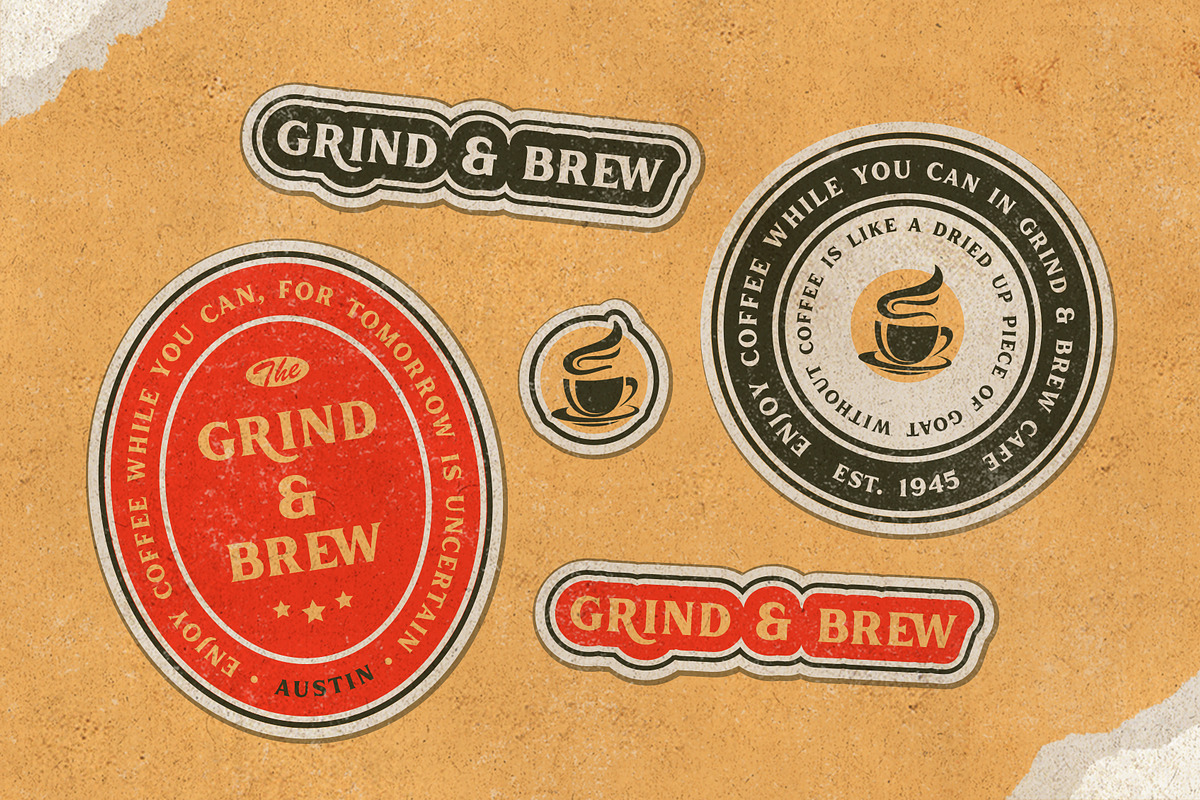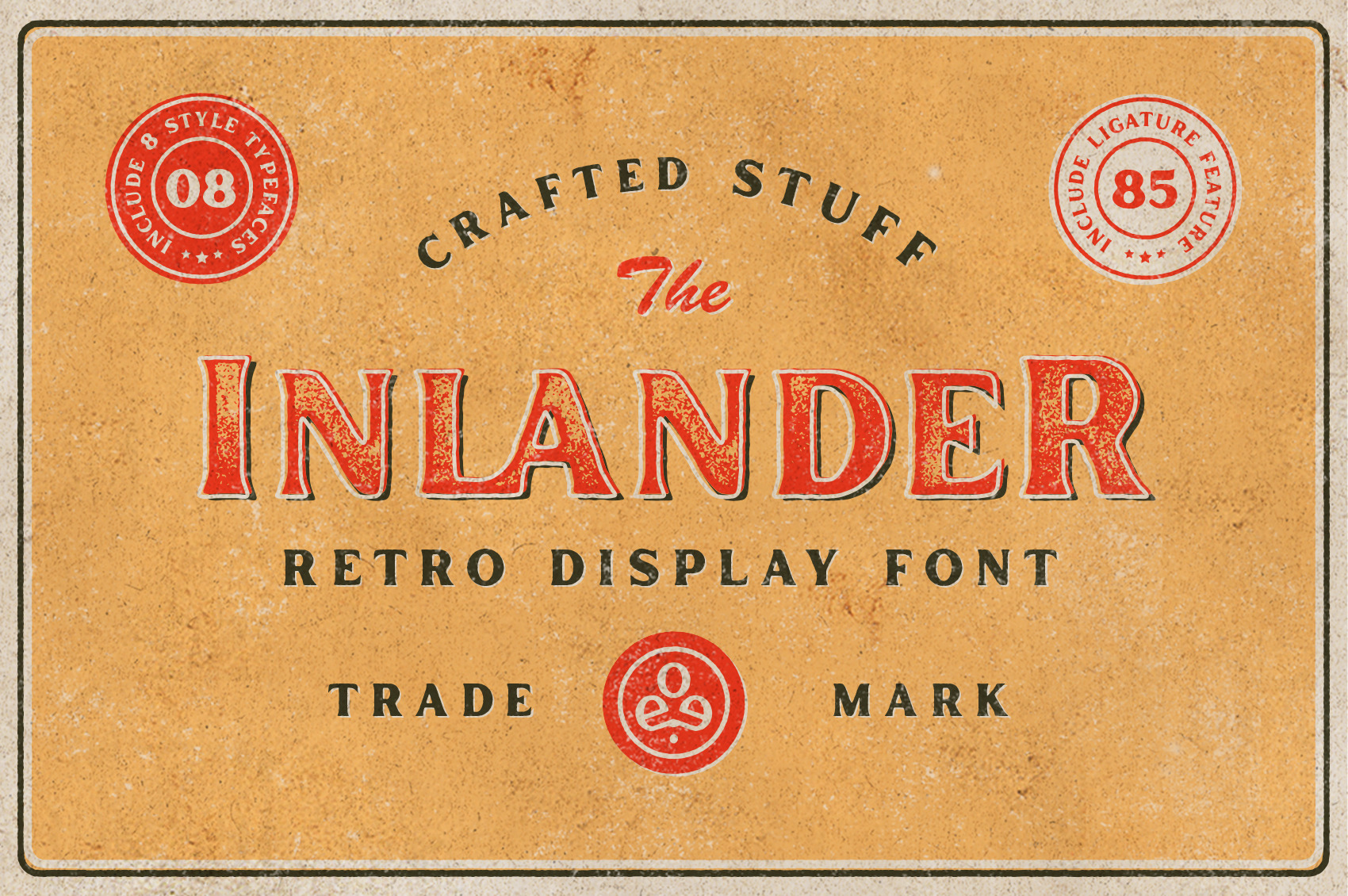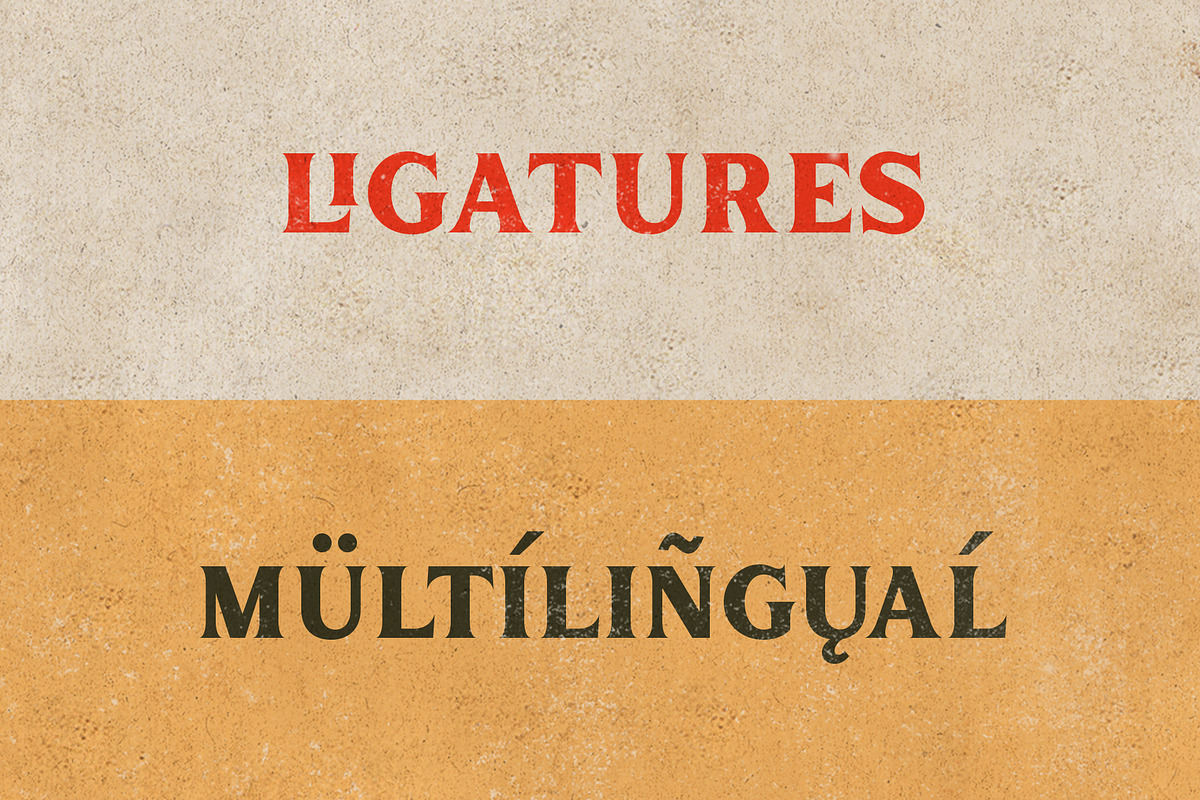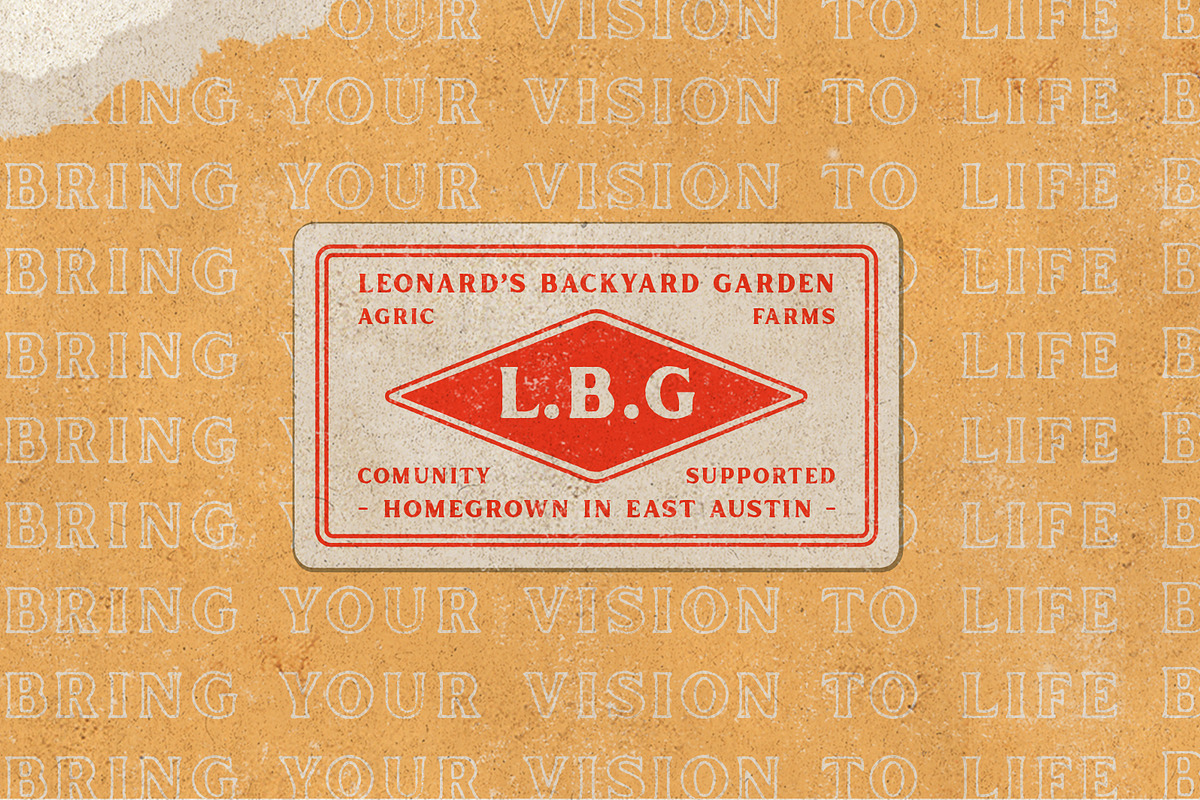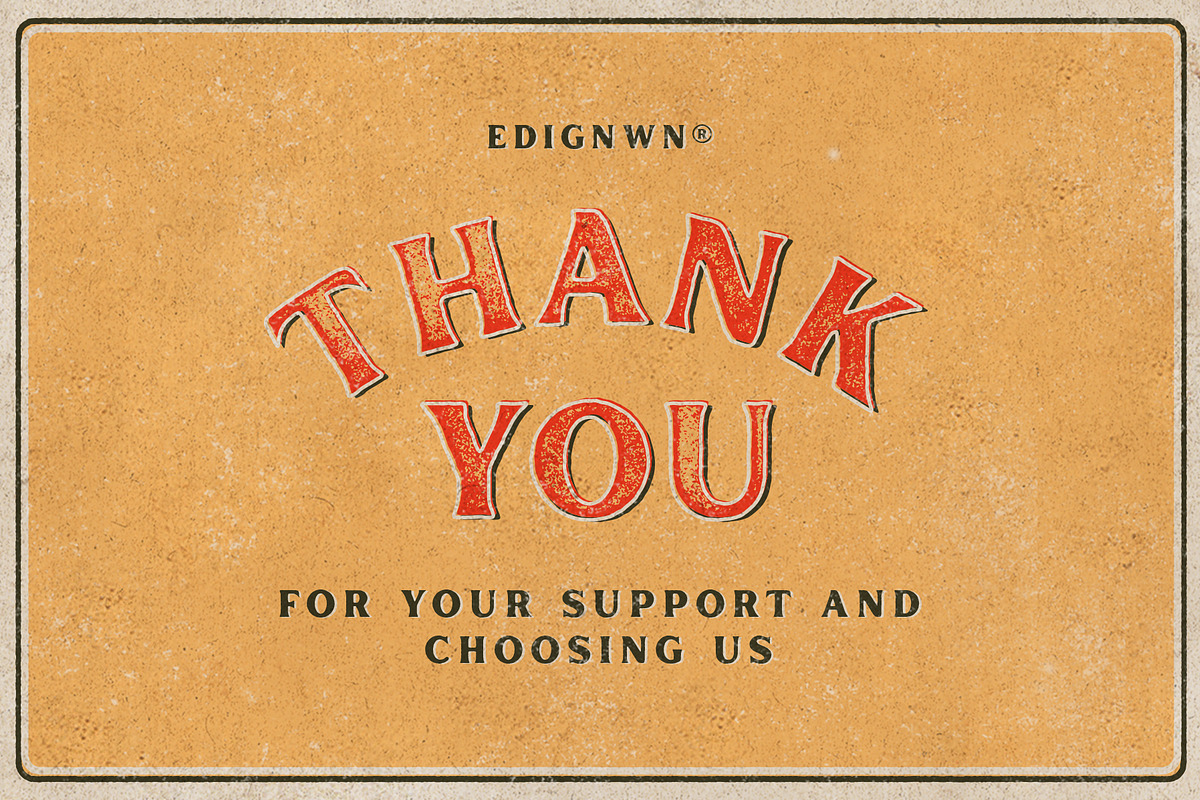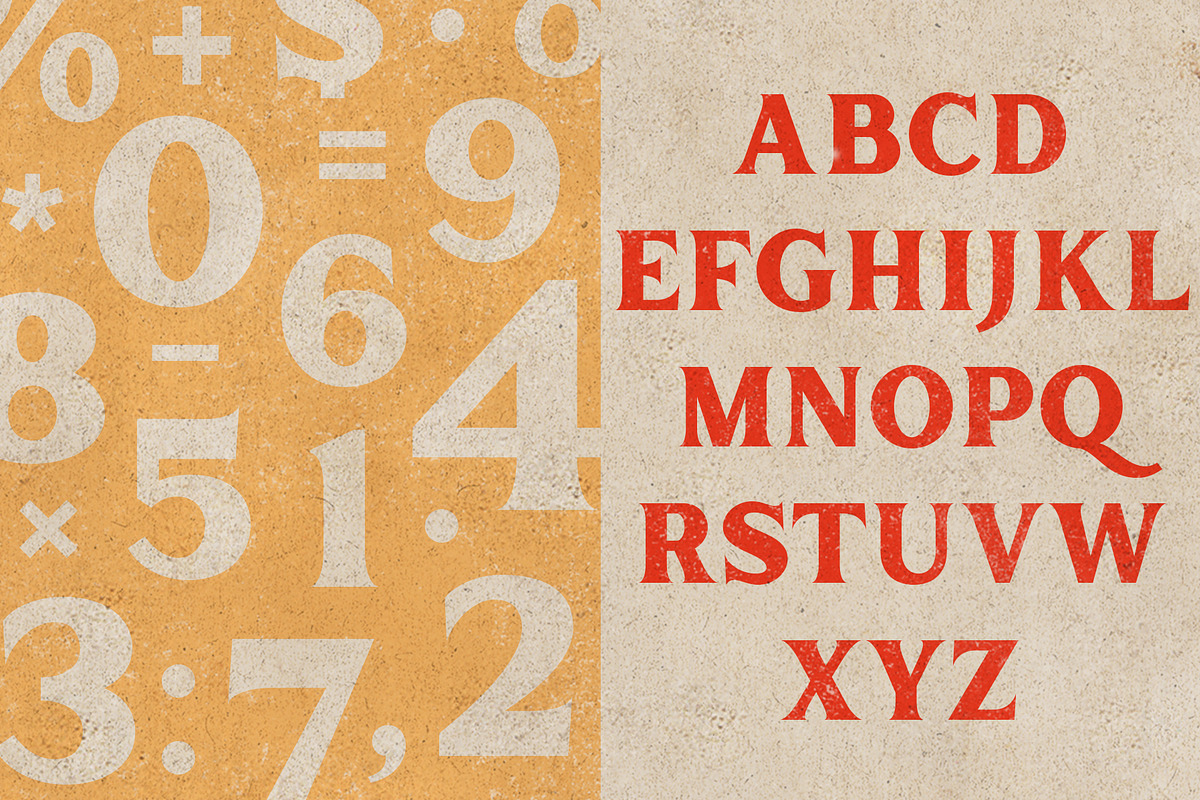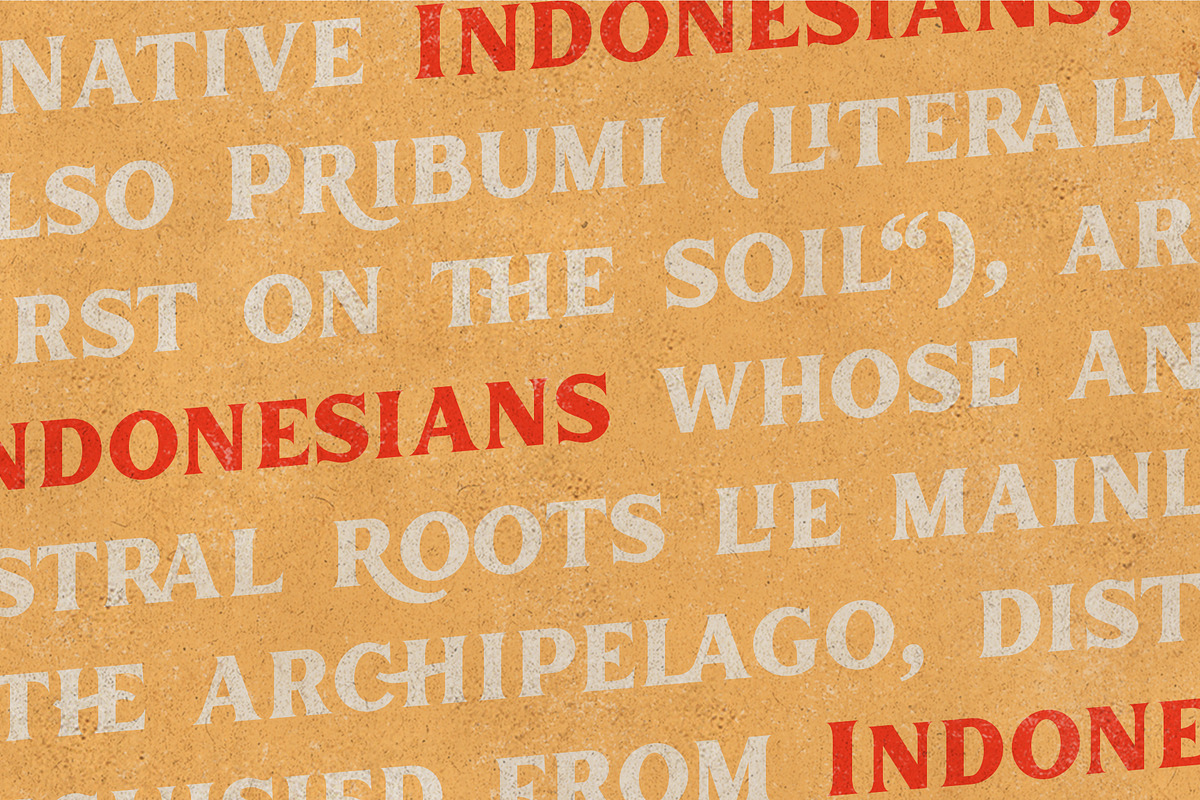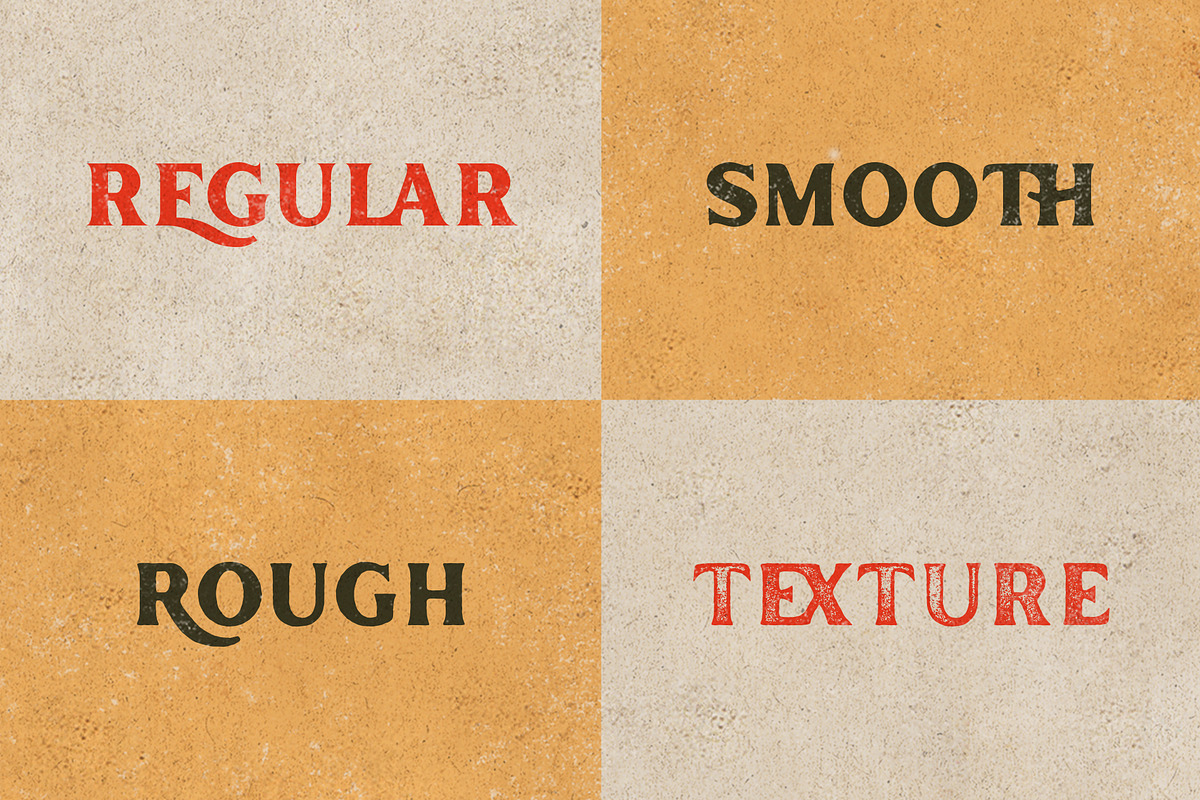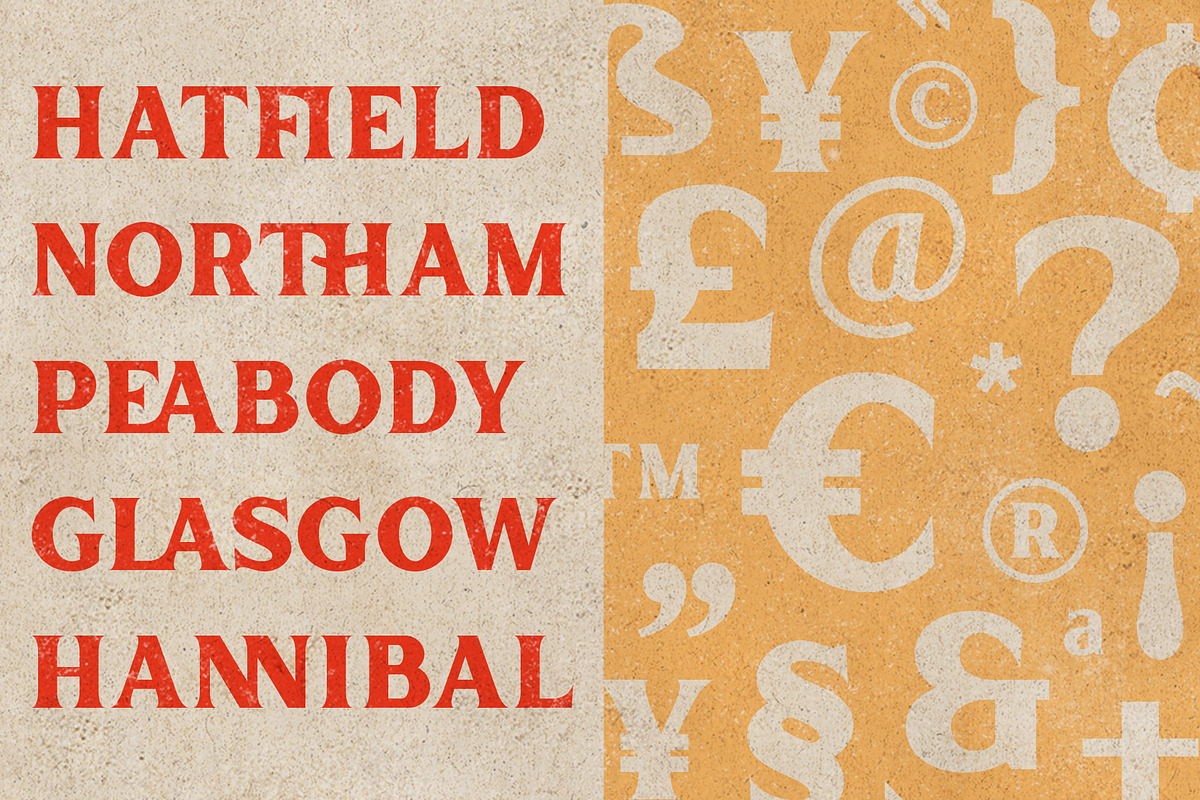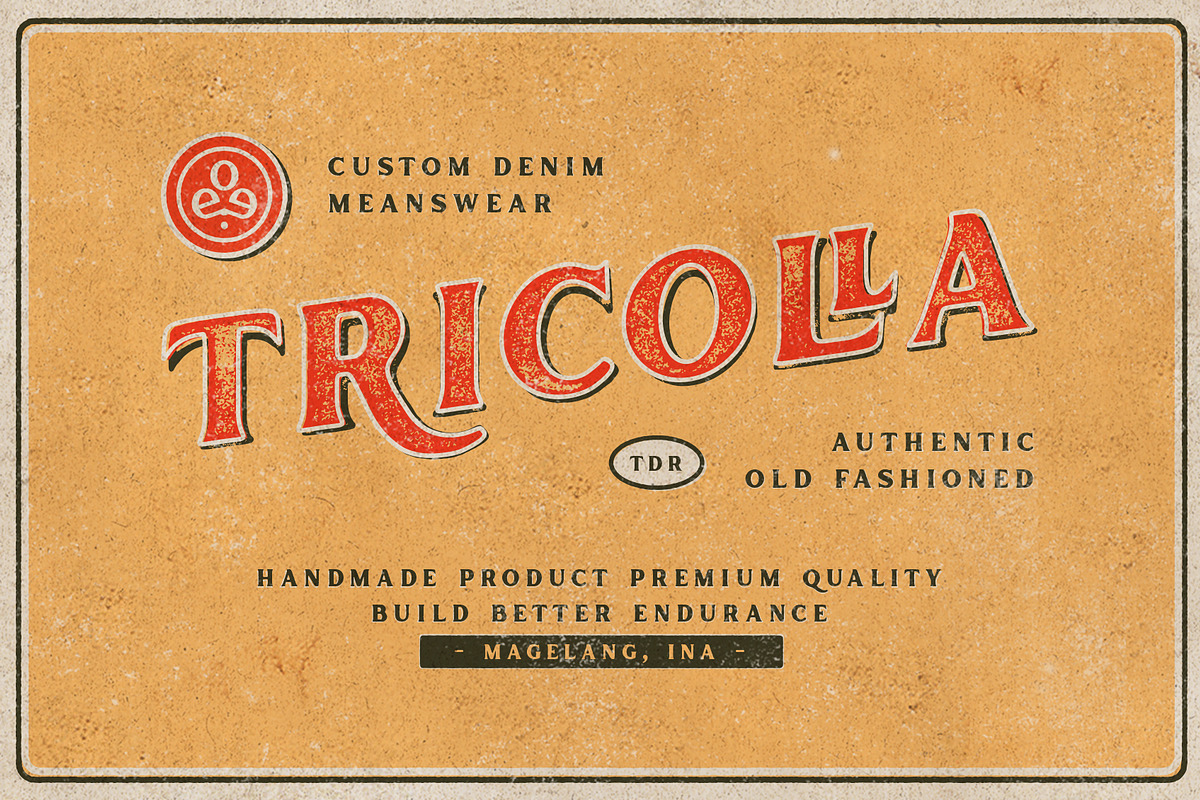
Inlander - Retro Display Font
The Inlander perfectly represents crafted stuff of serif display. This project inspired by beautiful retro label. This font matches applies in some designs such as the logotype, poster, label, badge, packaging, branding, and more custom design.
Inlander font features :
- 2 typefaces (solid and outline)
- 4 styles (regular, smooth, rough and texture)
- All-caps, numeral, punctuation & symbol
- Ligatures features
- Multilingual supported